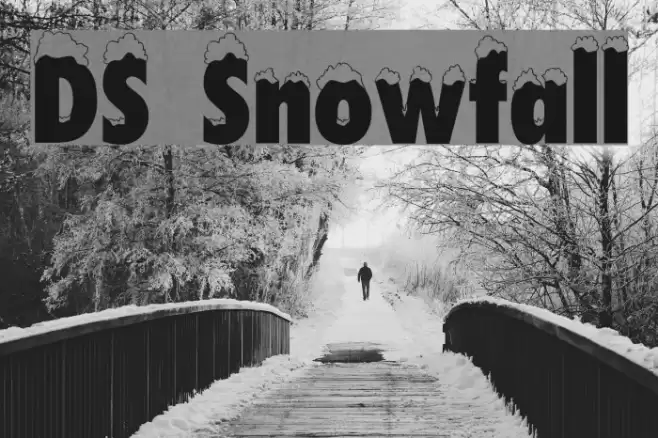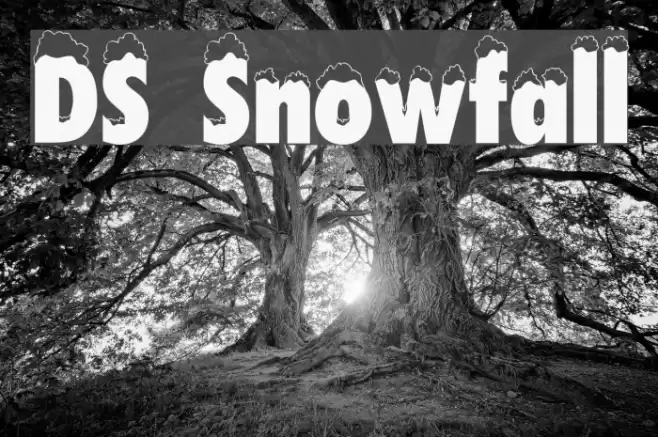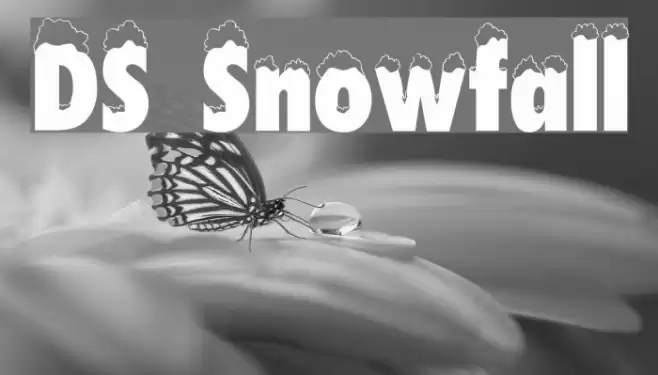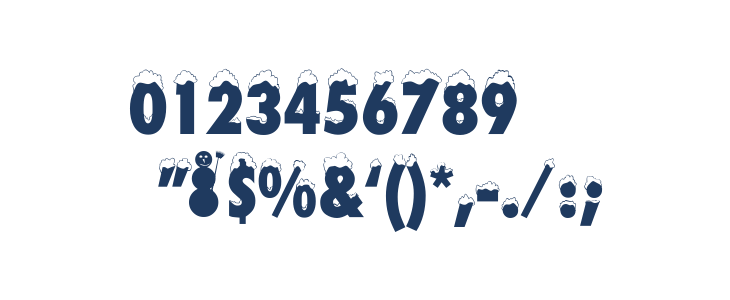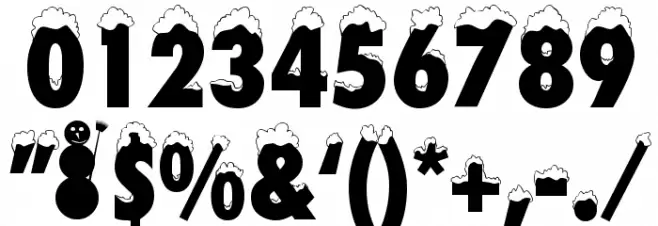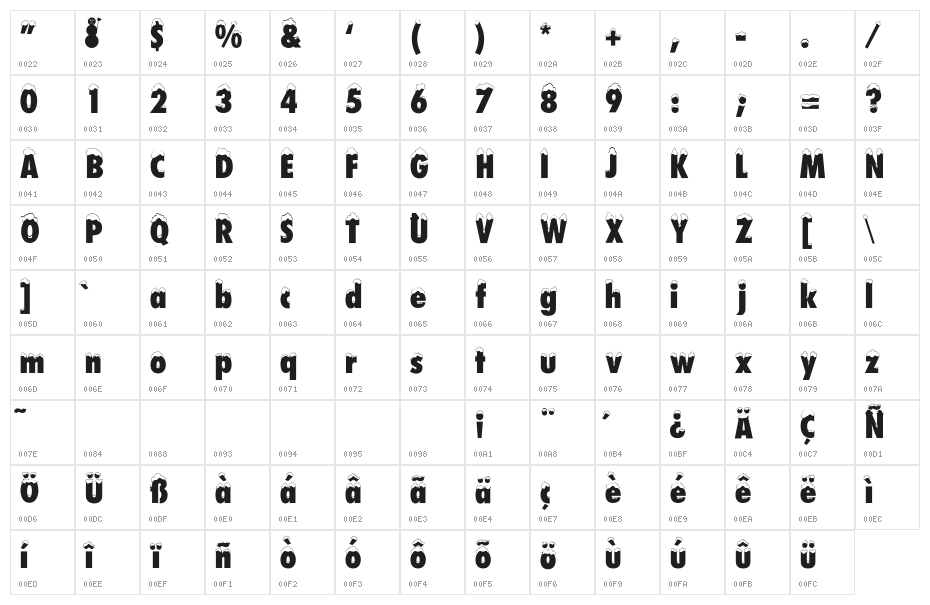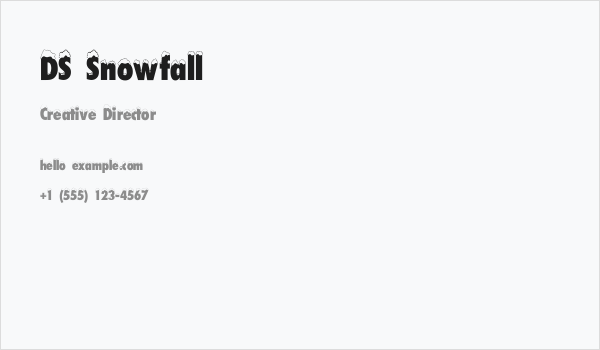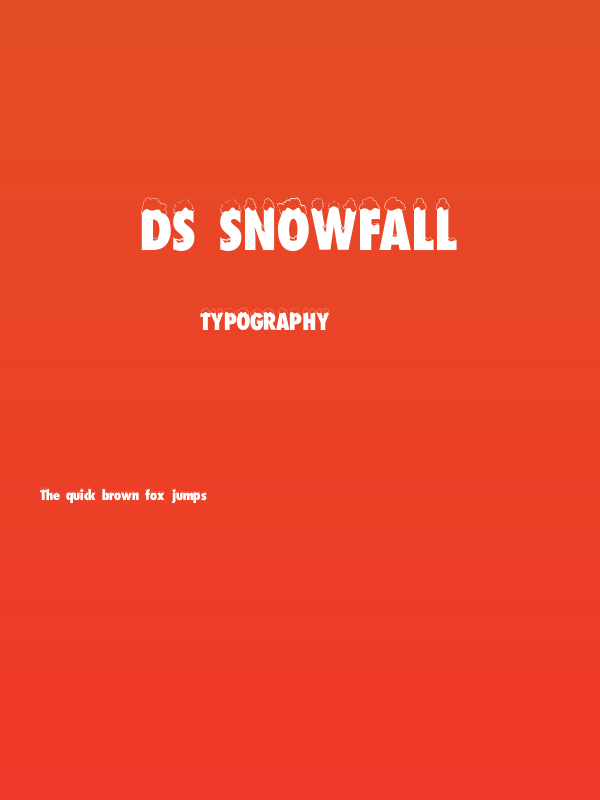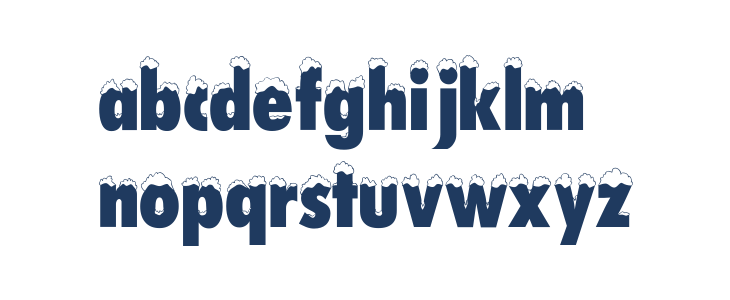
DS Snowfall Font
DS Snowfall Description
This playful and decorative font features bold, uppercase and lowercase letters with a unique snow-capped design. Each character is topped with a whimsical snow effect, making it ideal for winter-themed projects. The font is bold and has a strong presence, with a consistent stroke width that adds to its robust appearance. The characters are evenly spaced, providing a balanced and cohesive look. The numbers and special characters also carry the snow-capped theme, ensuring a uniform style across all elements.
- Proposed Projects: Ideal for holiday cards, winter event posters, festive banners, and seasonal branding.